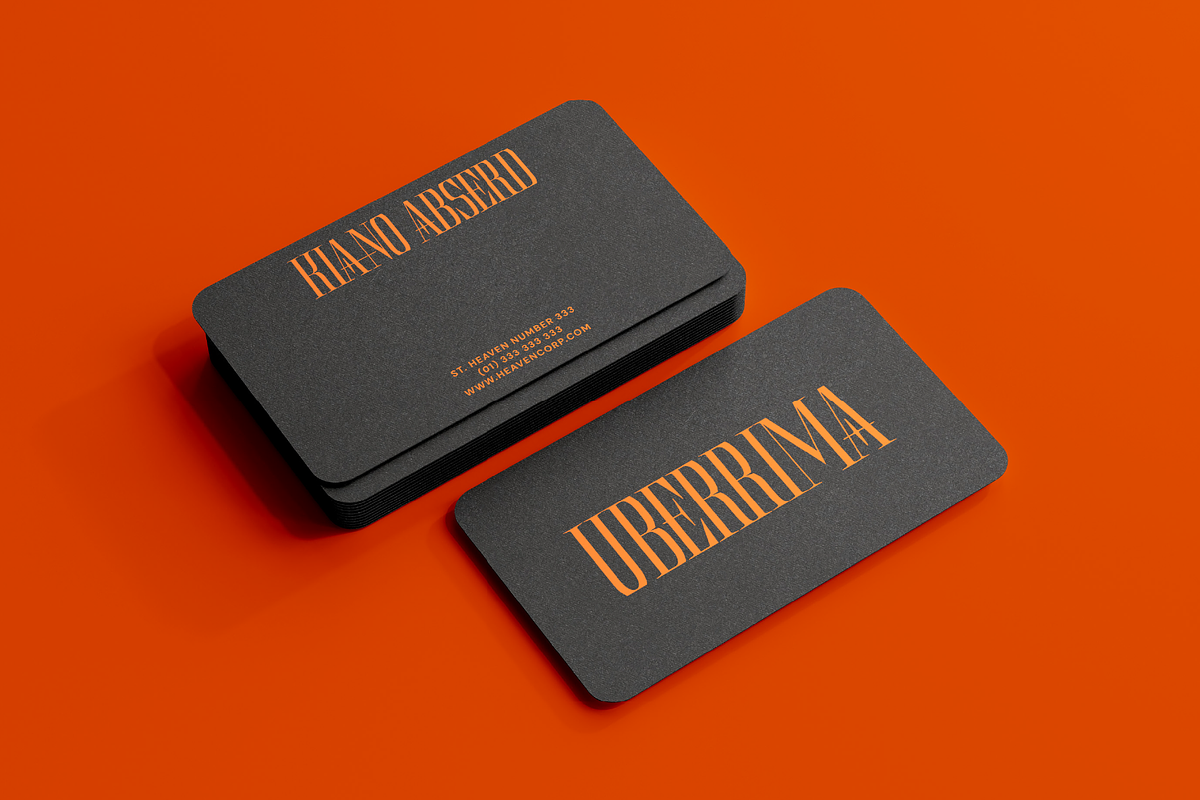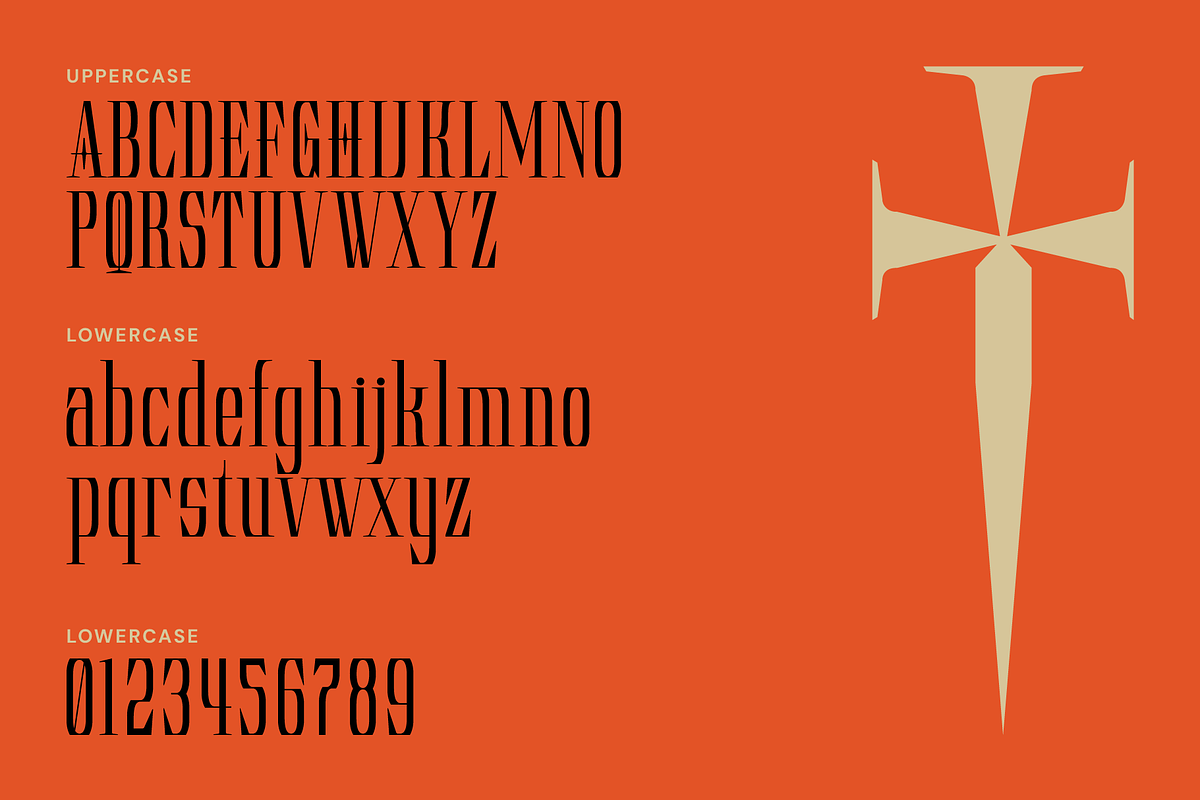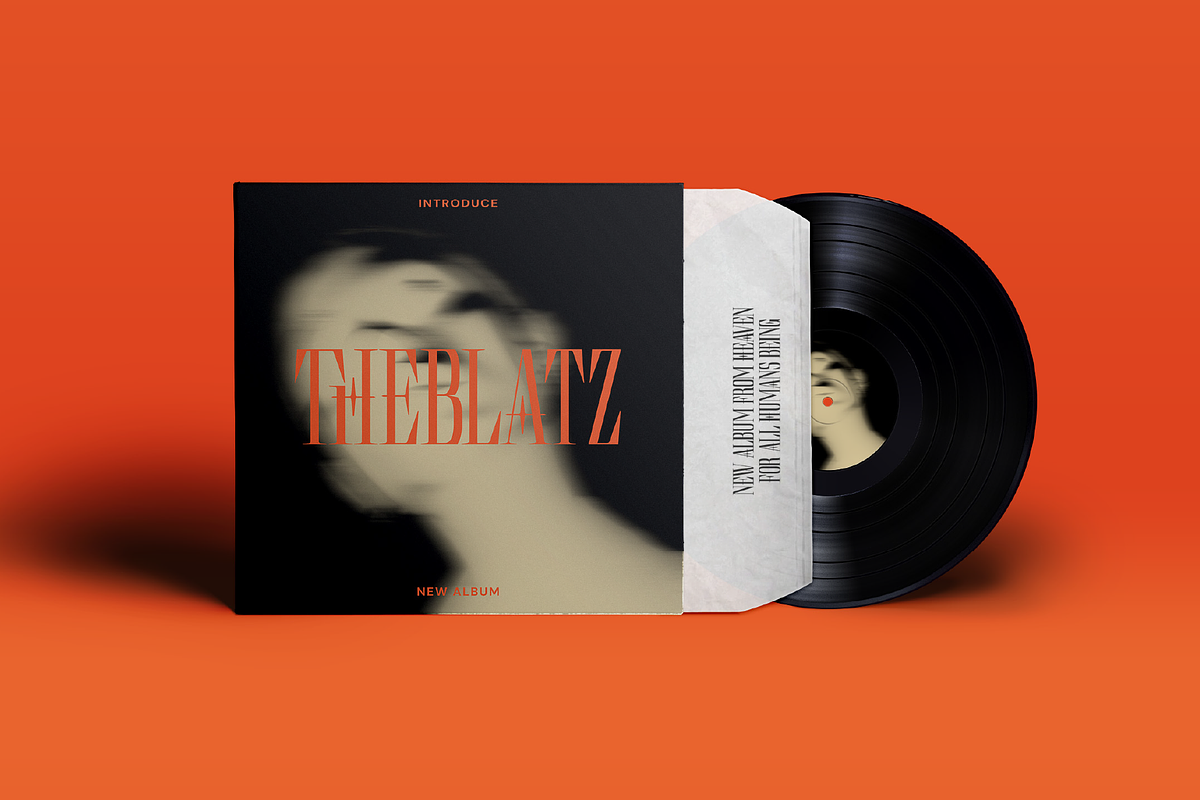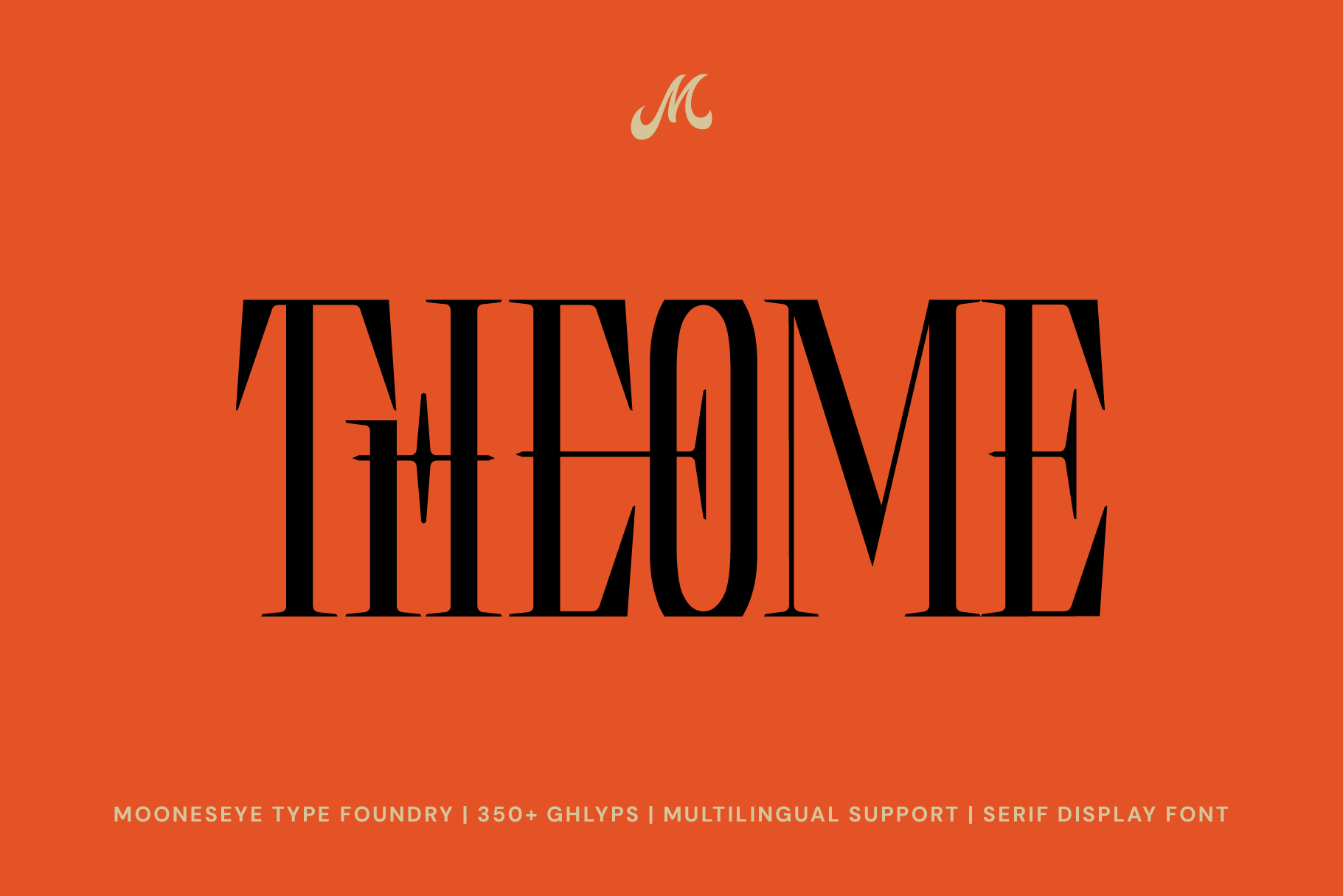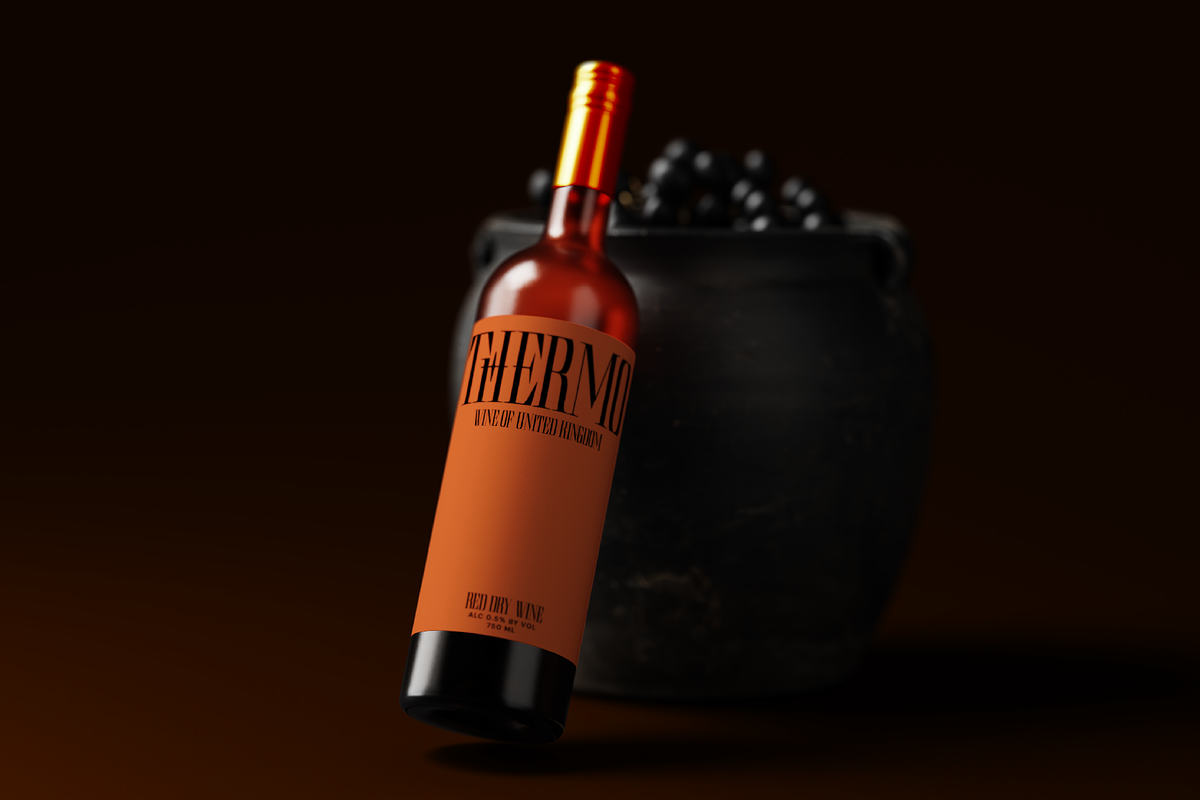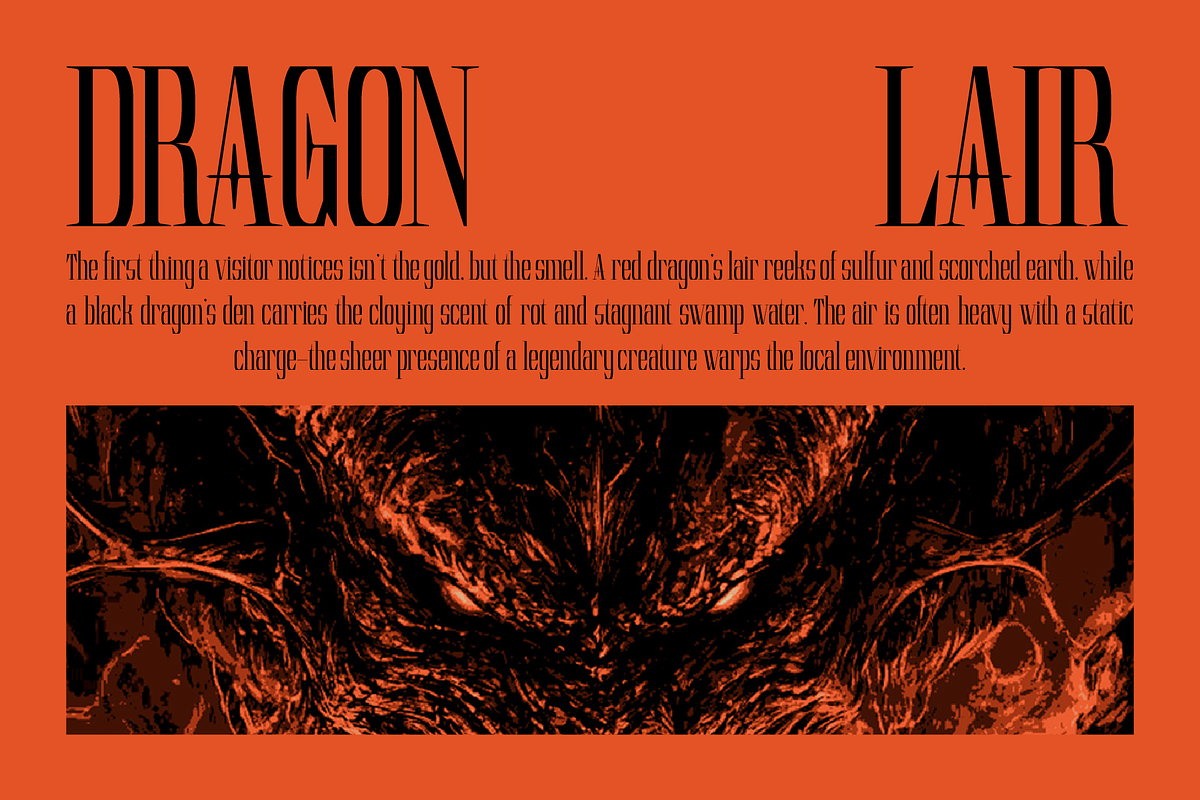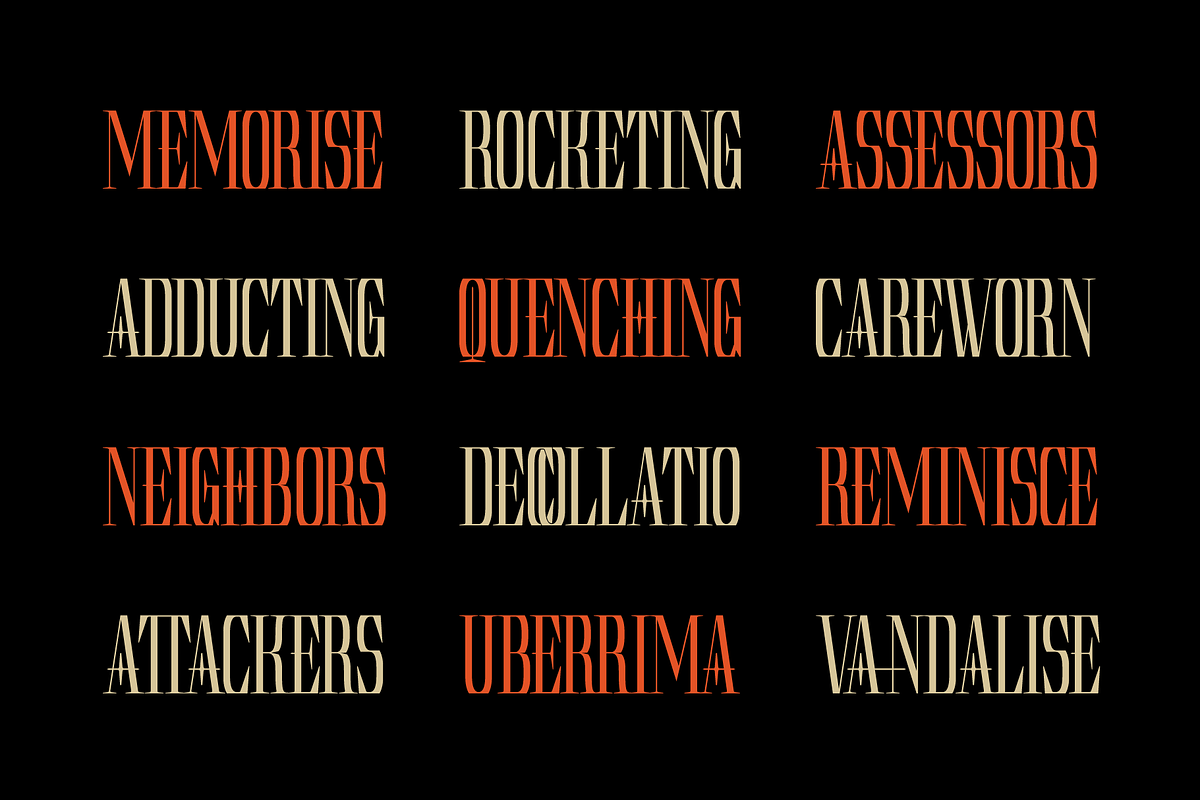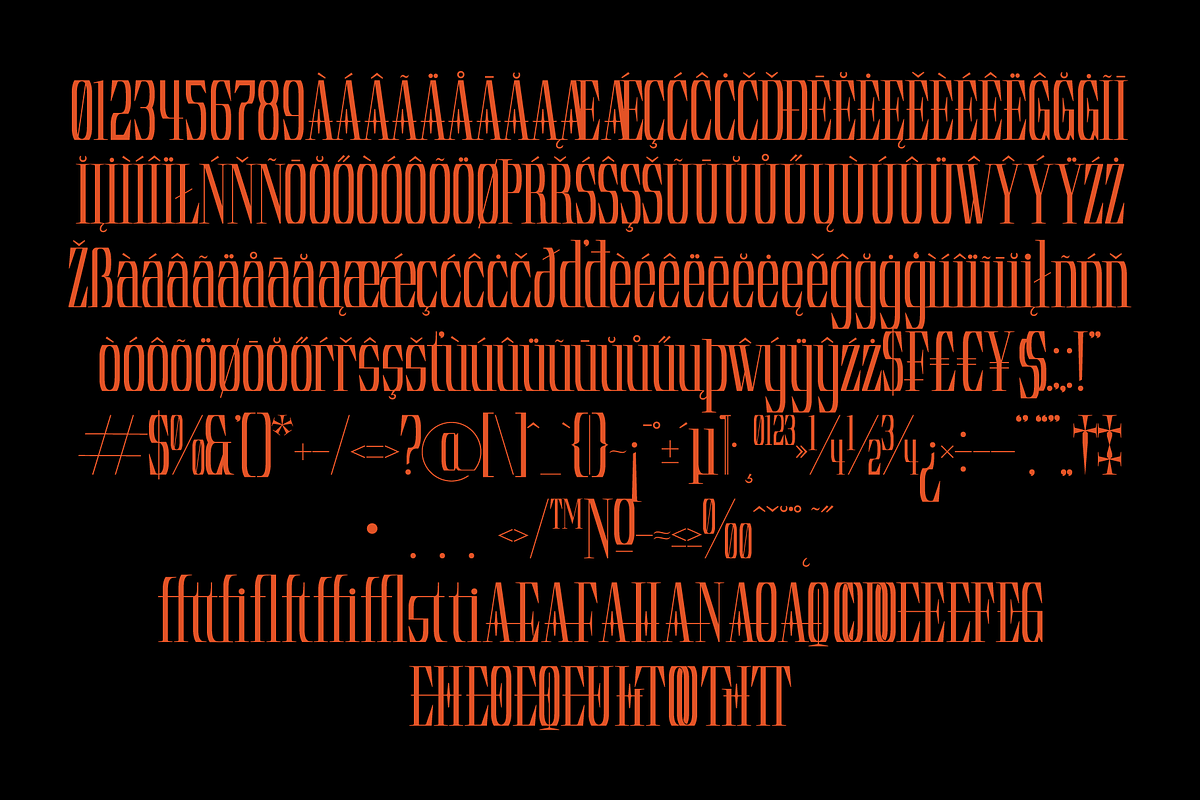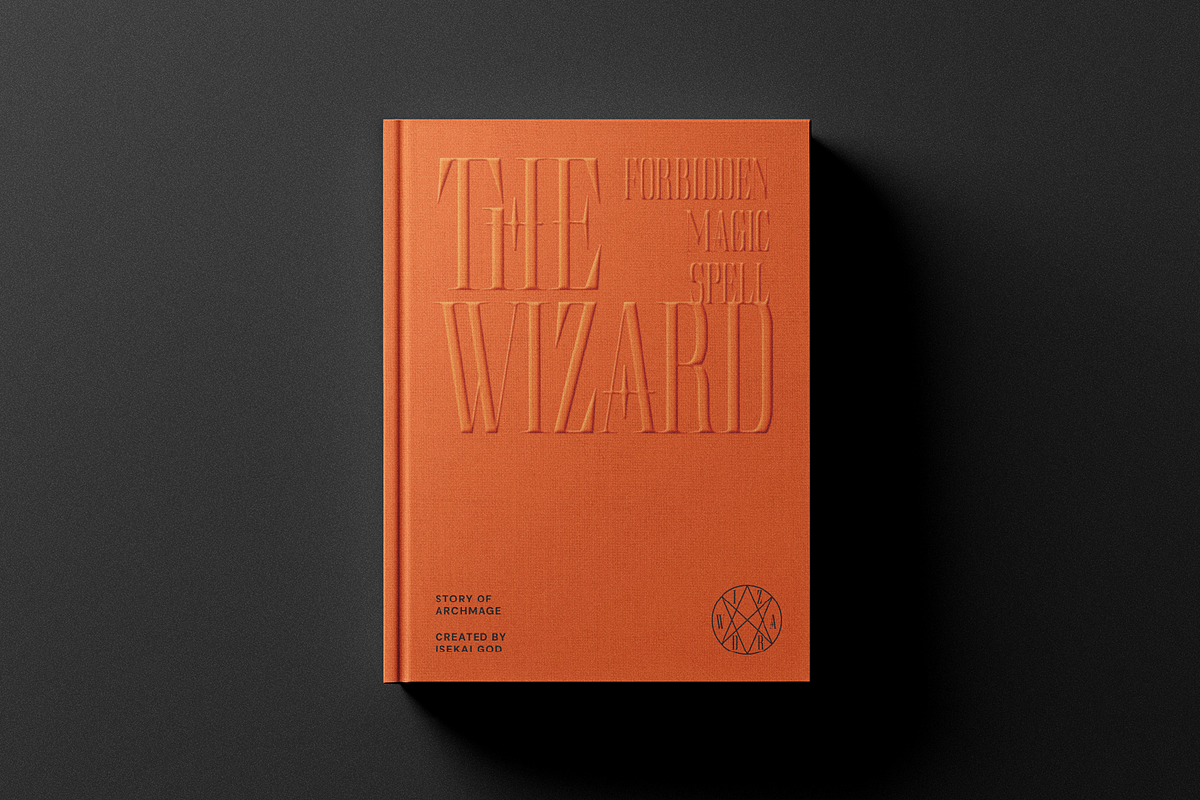
Theome – Serif Display Font
Theome is a condensed serif display font that bridges the gap between classic gothic architecture and contemporary high-fashion typography. Designed for impact, its razor-sharp serifs and towering verticality make it the perfect choice for designers looking to add a touch of dark elegance and mystery to their projects.
- Complete Alphabet: Uppercase & Lowercase with high-contrast strokes.
- Experimental Ligatures: Unique nested and decorative character joins for custom-looking logos.
- Extensive Language Support: 350+ Glyphs covering major European languages (Multilingual).
- Numbers & Punctuation: Consistent sharp styling across all characters.